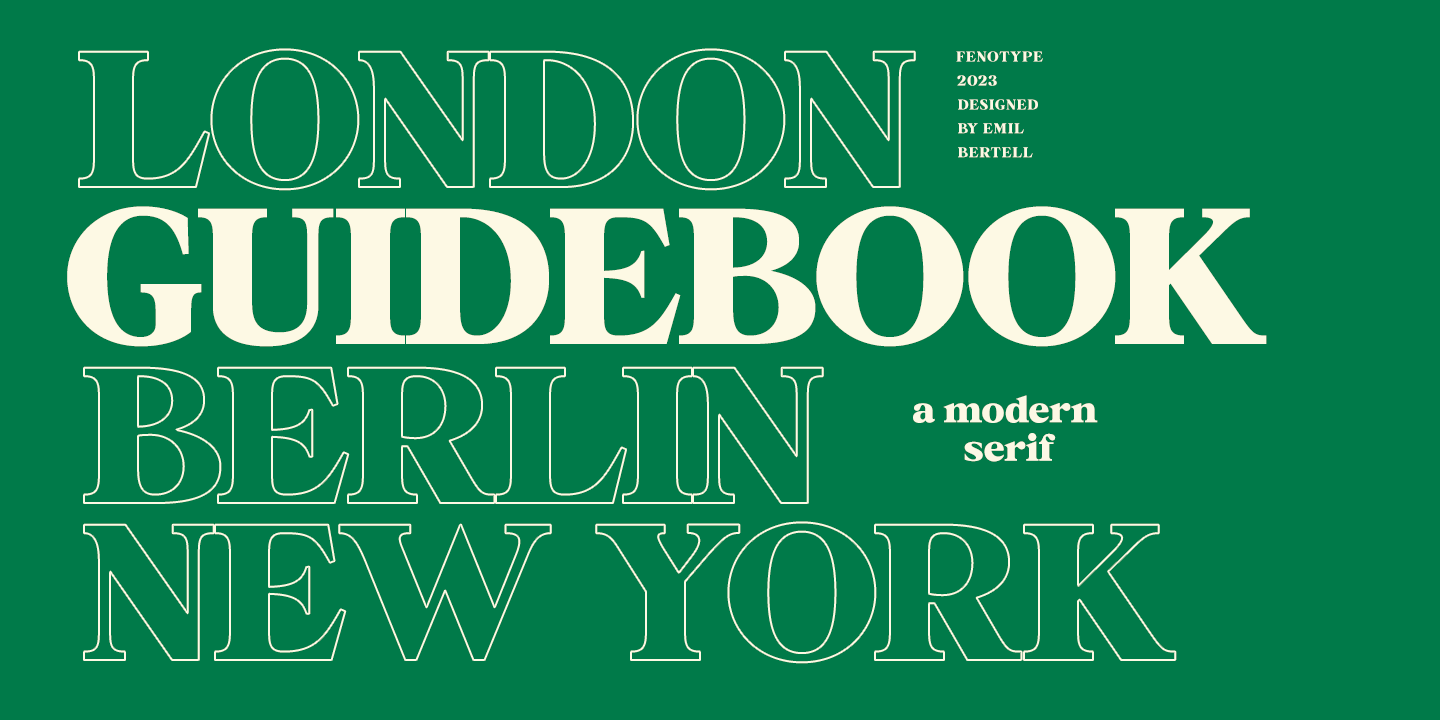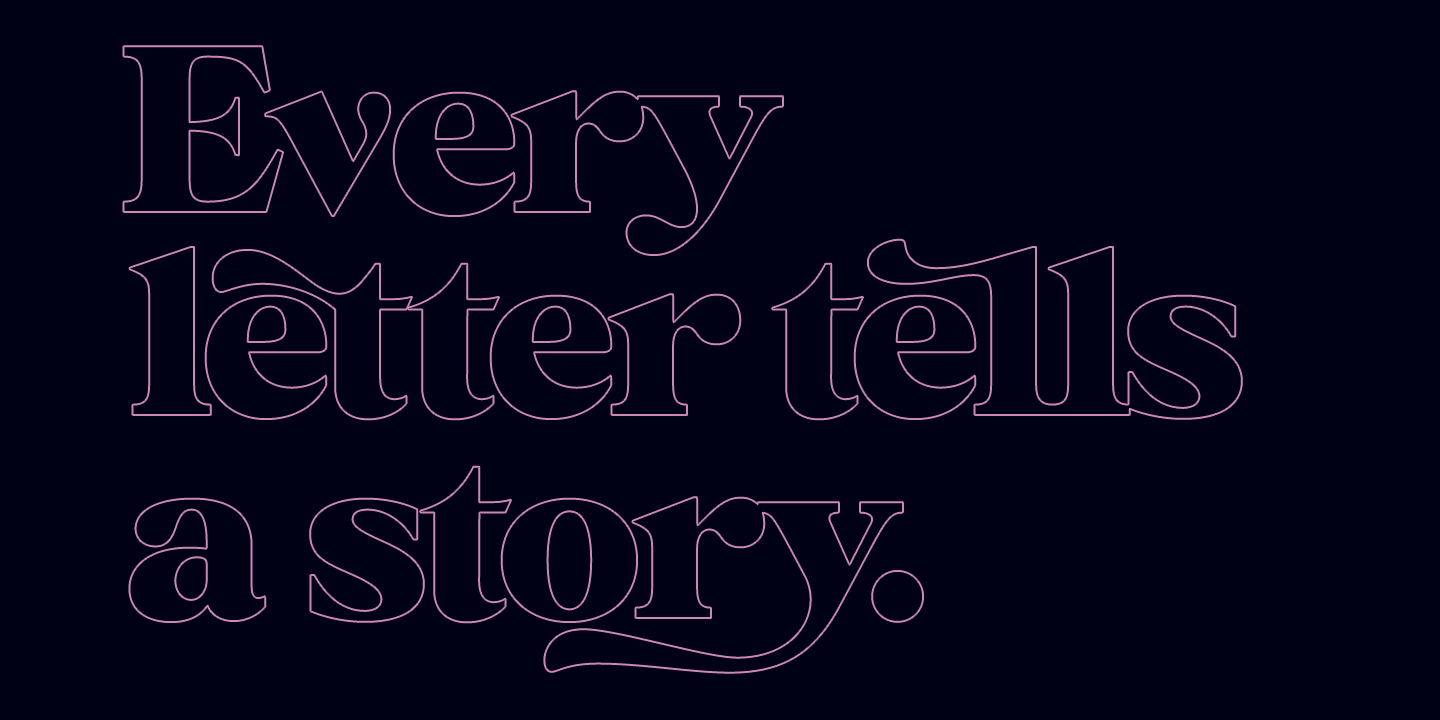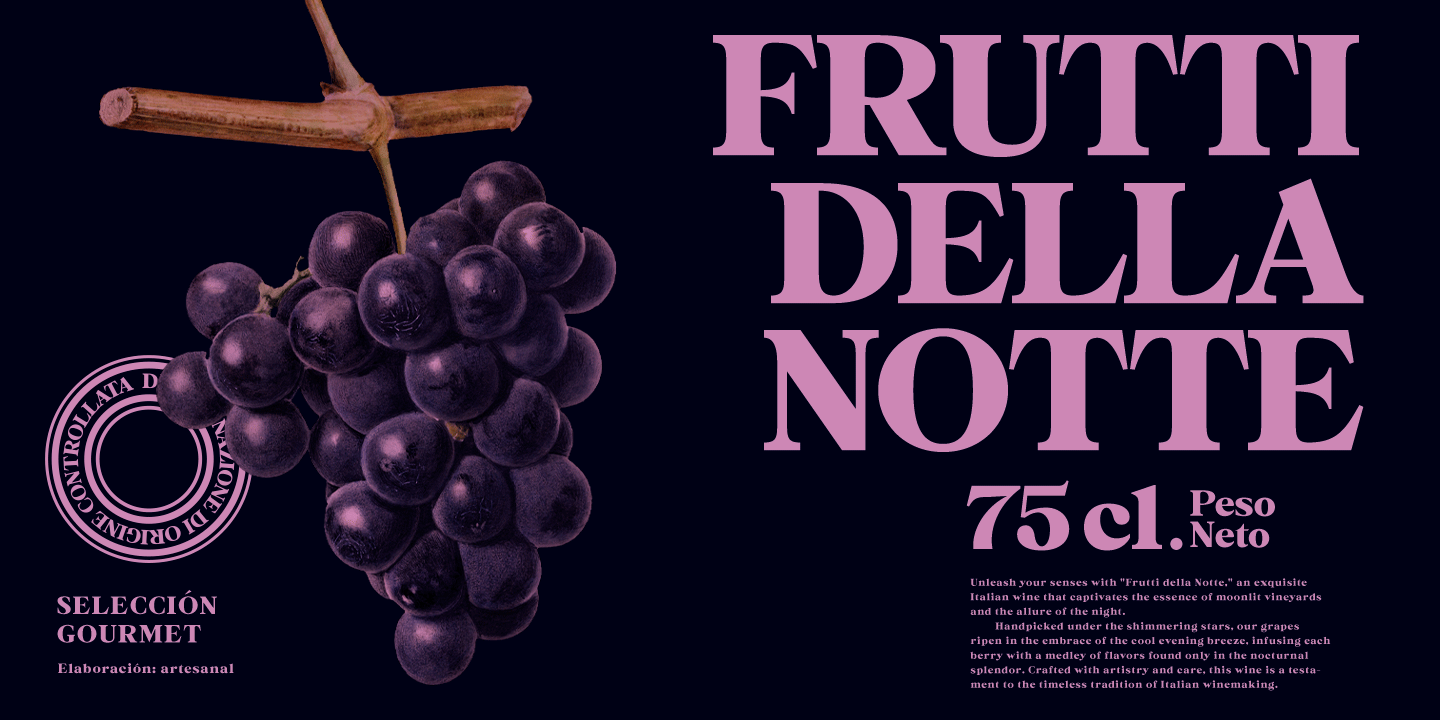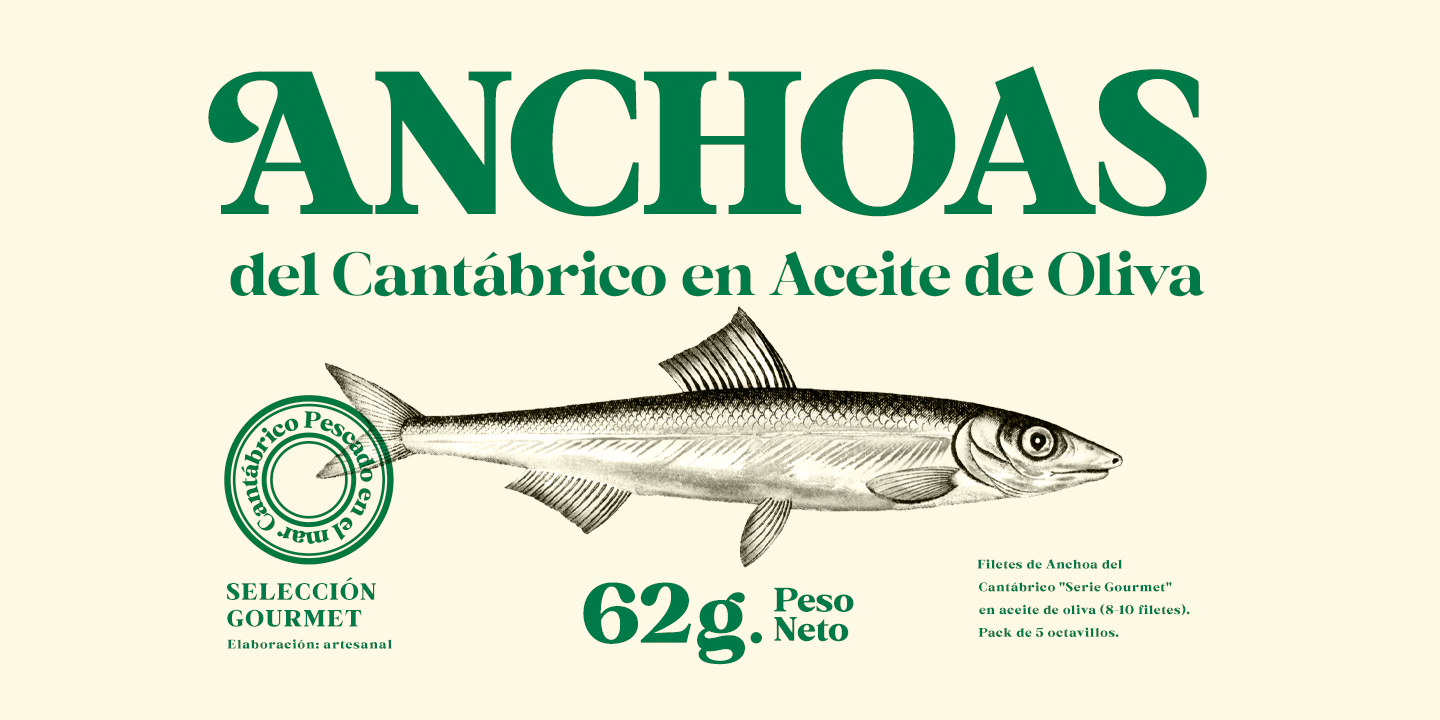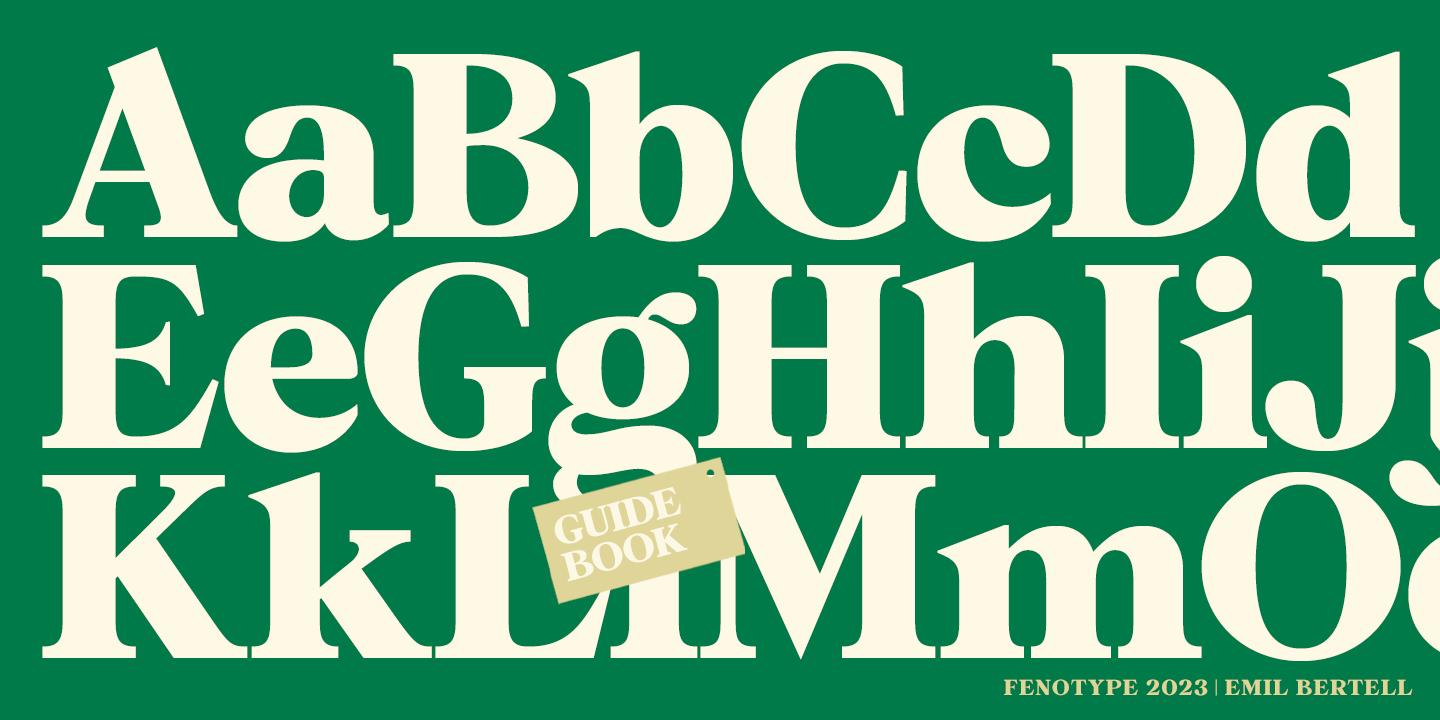
Guidebook is a bold vintage style serif font with a nonchalant charm and sturdy confidence. Guidebook has clean features and it expresses credibility with a reminiscence of familiar nostalgic feeling. Guidebook is equipped with Swash, Stylistic and Titling…